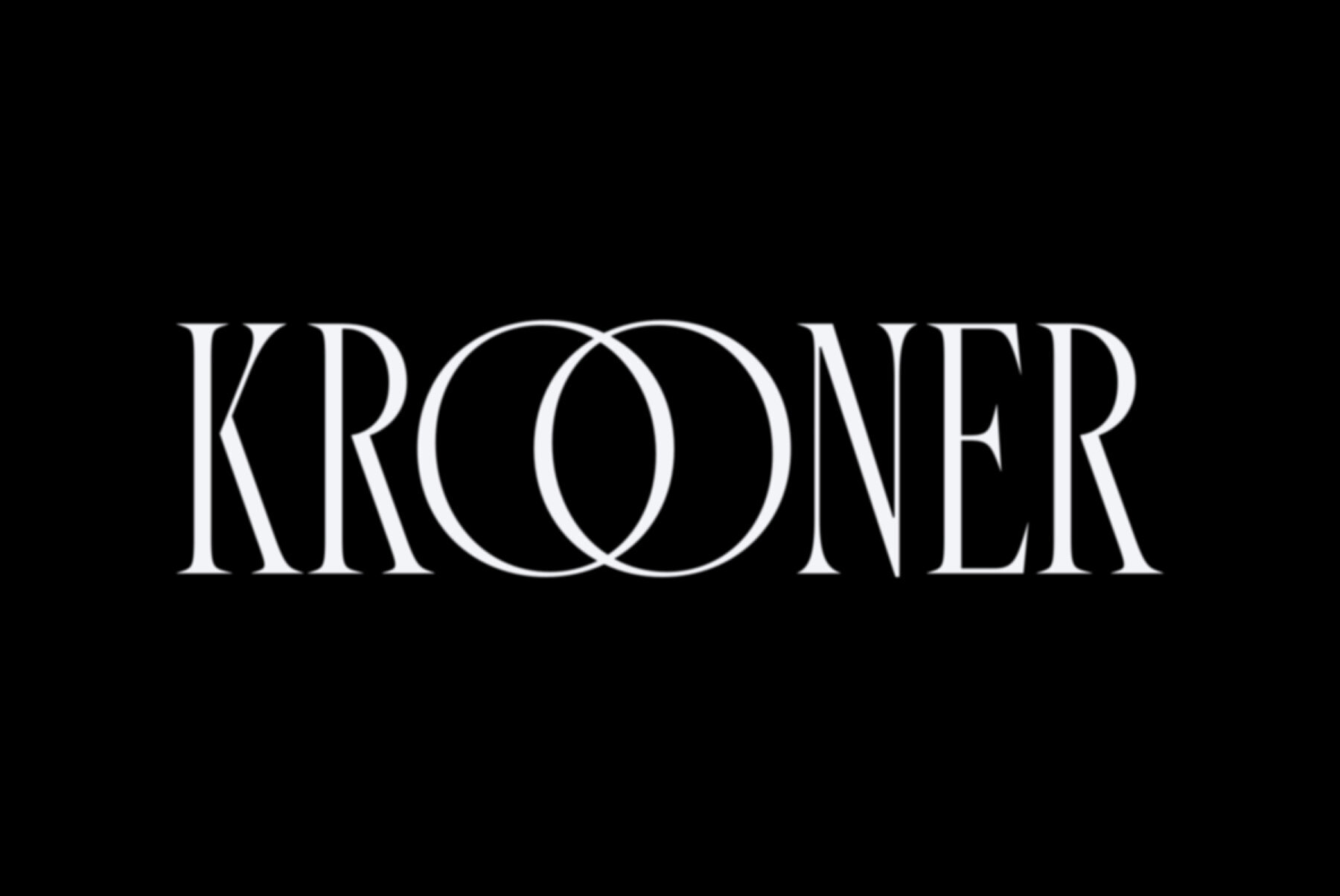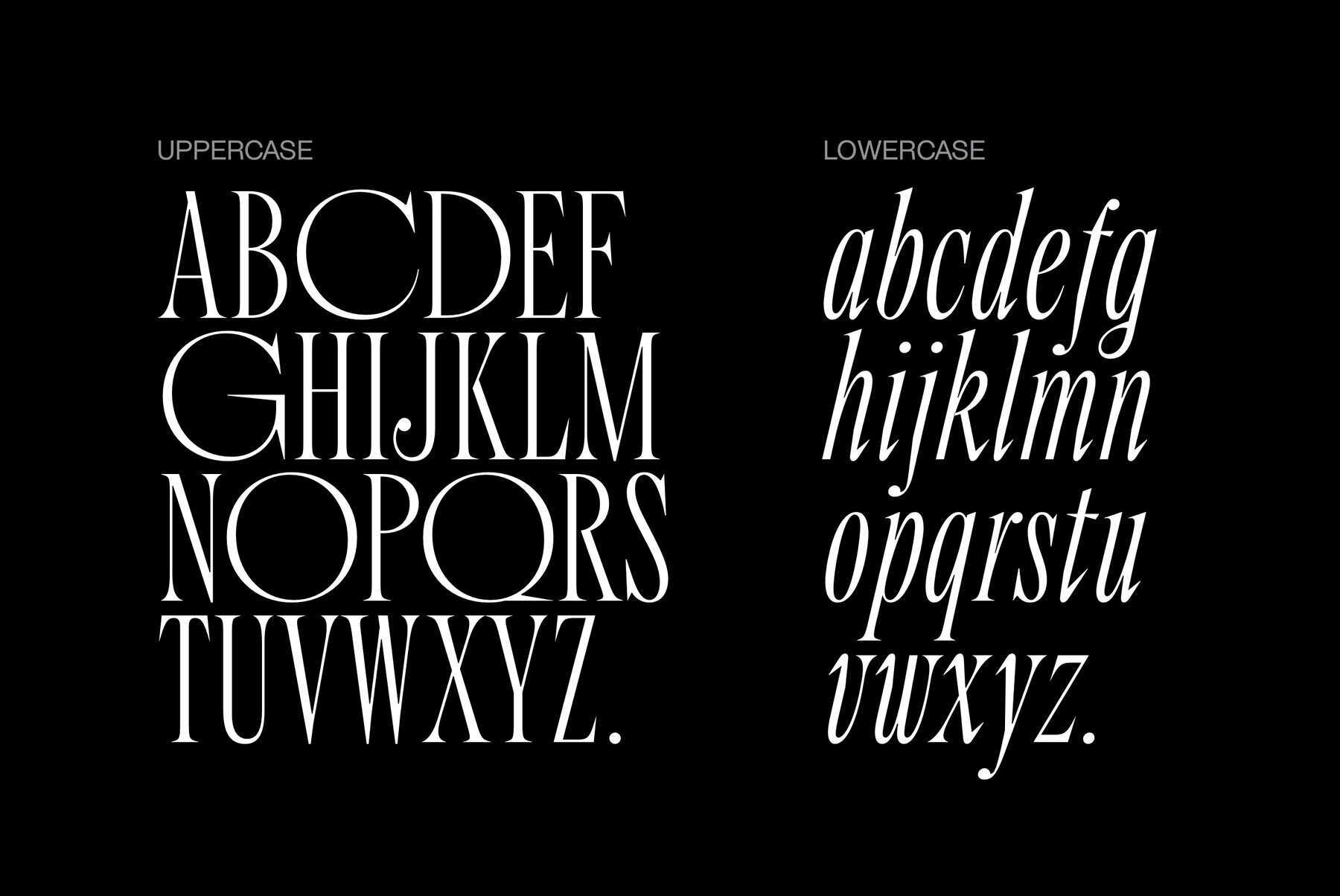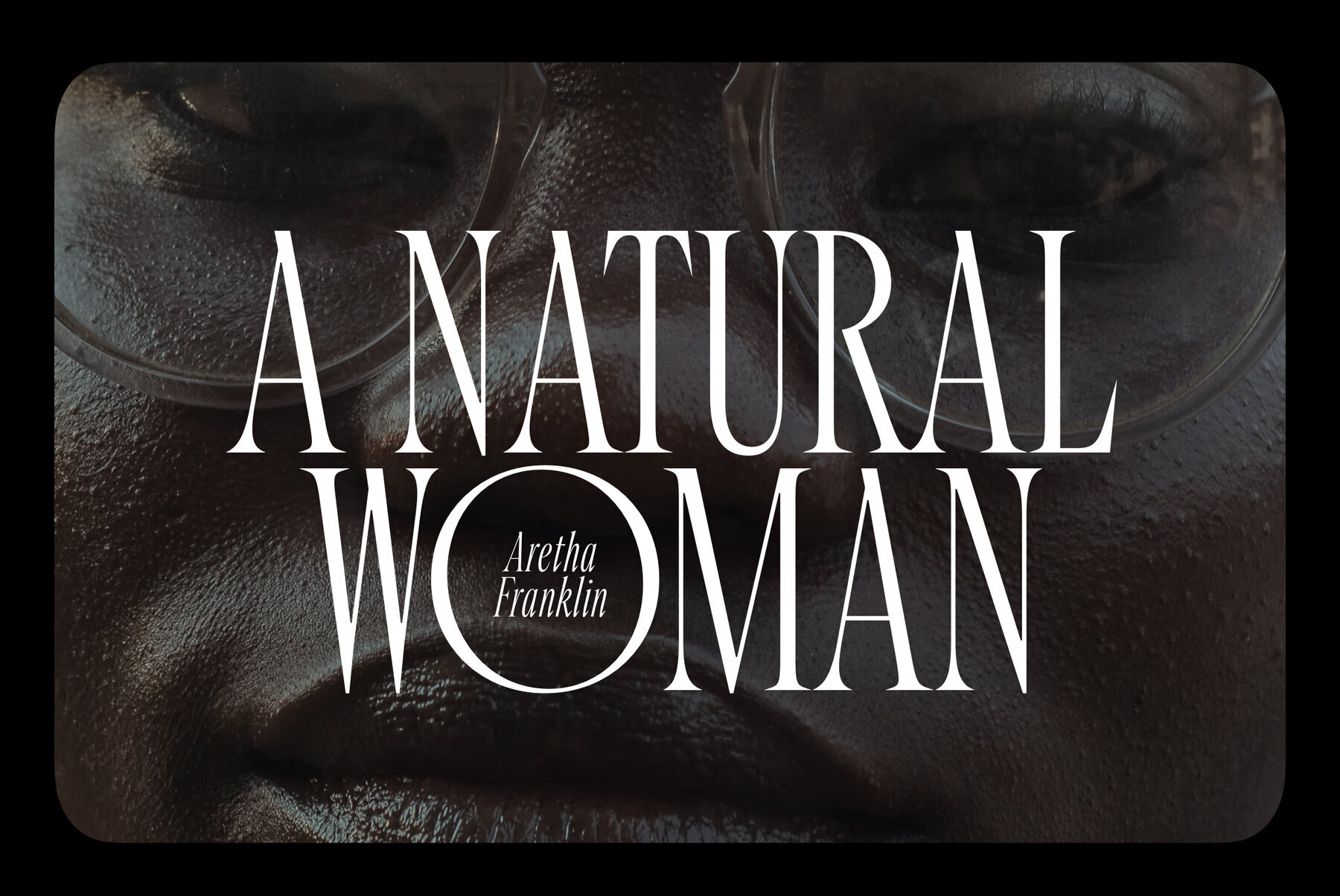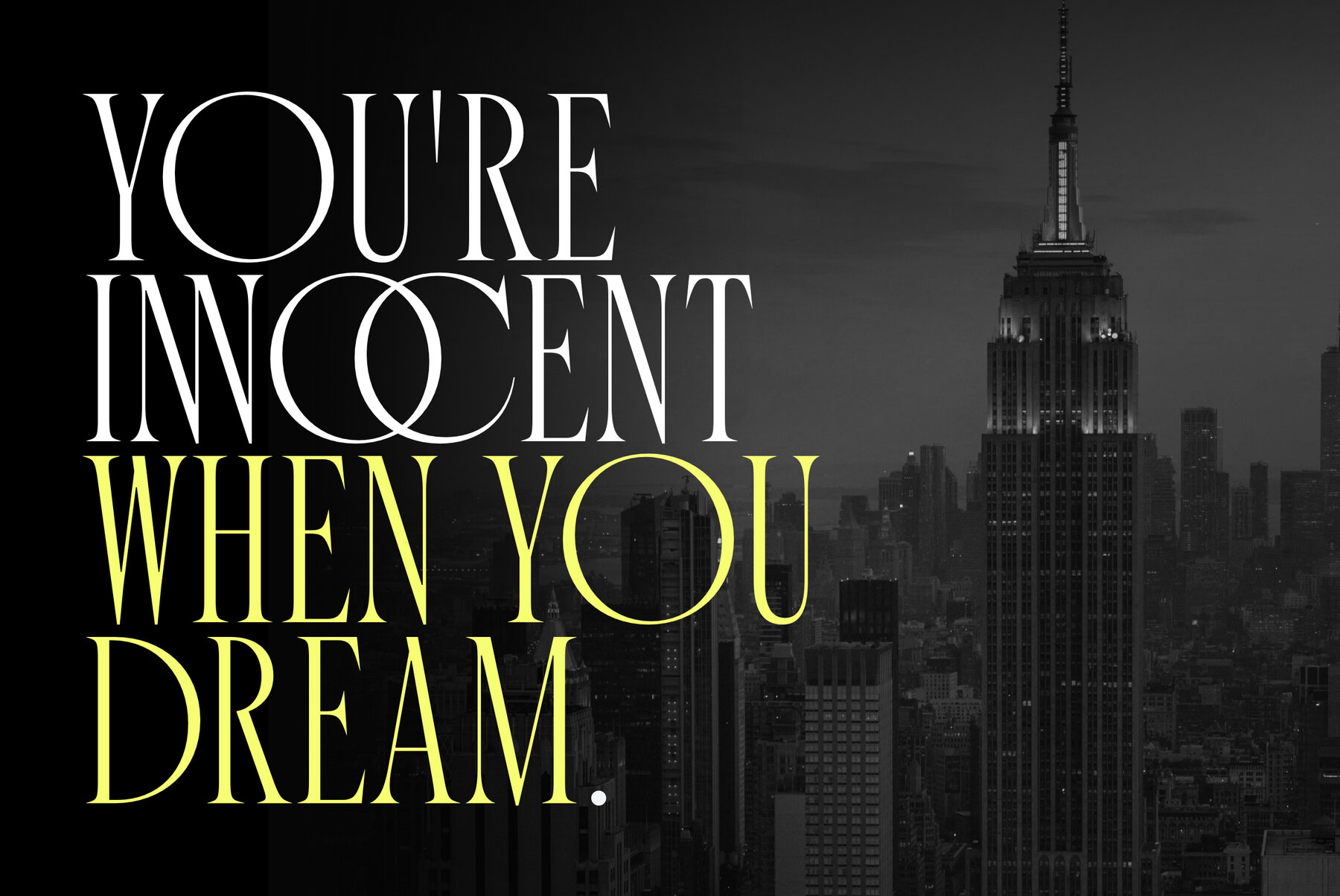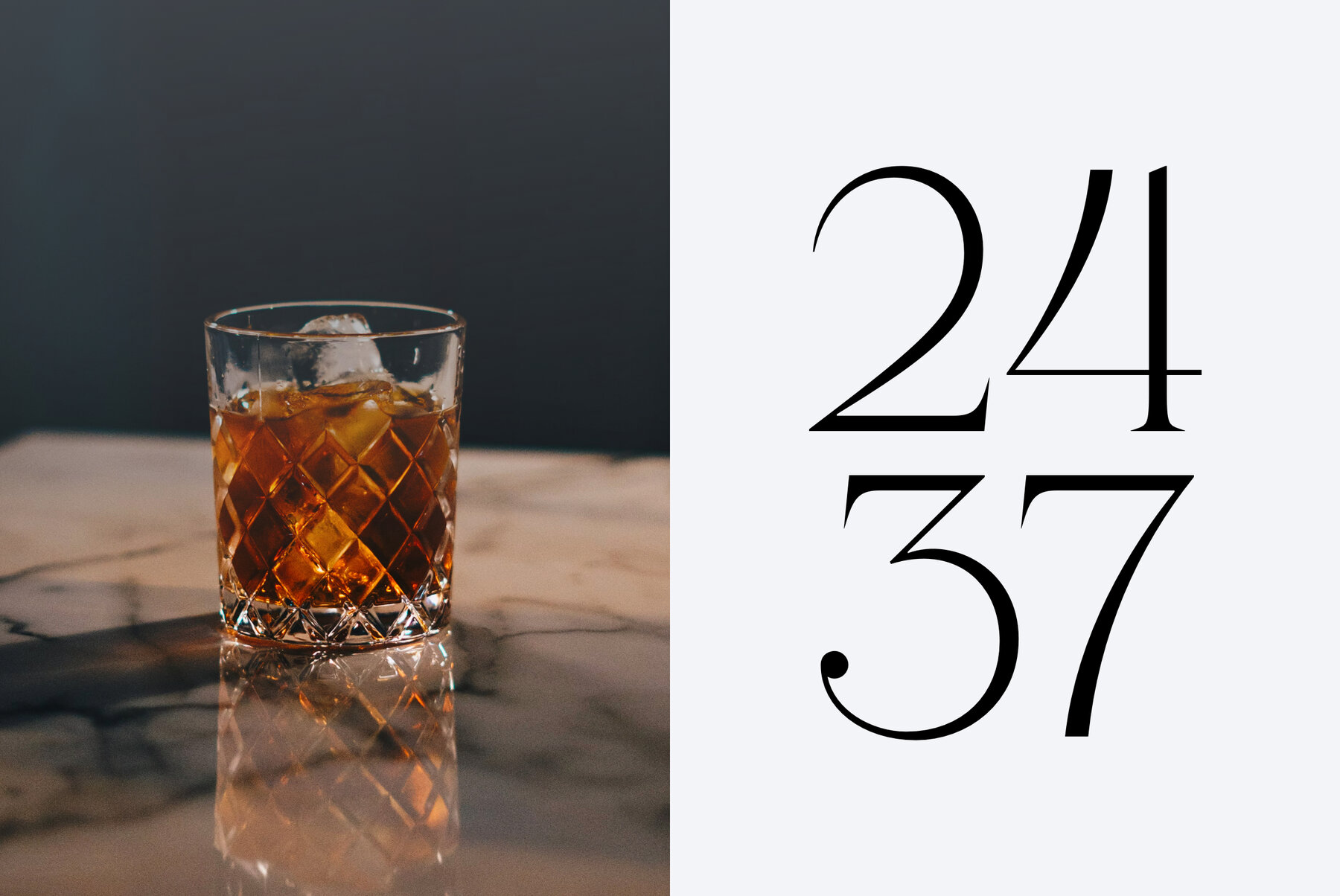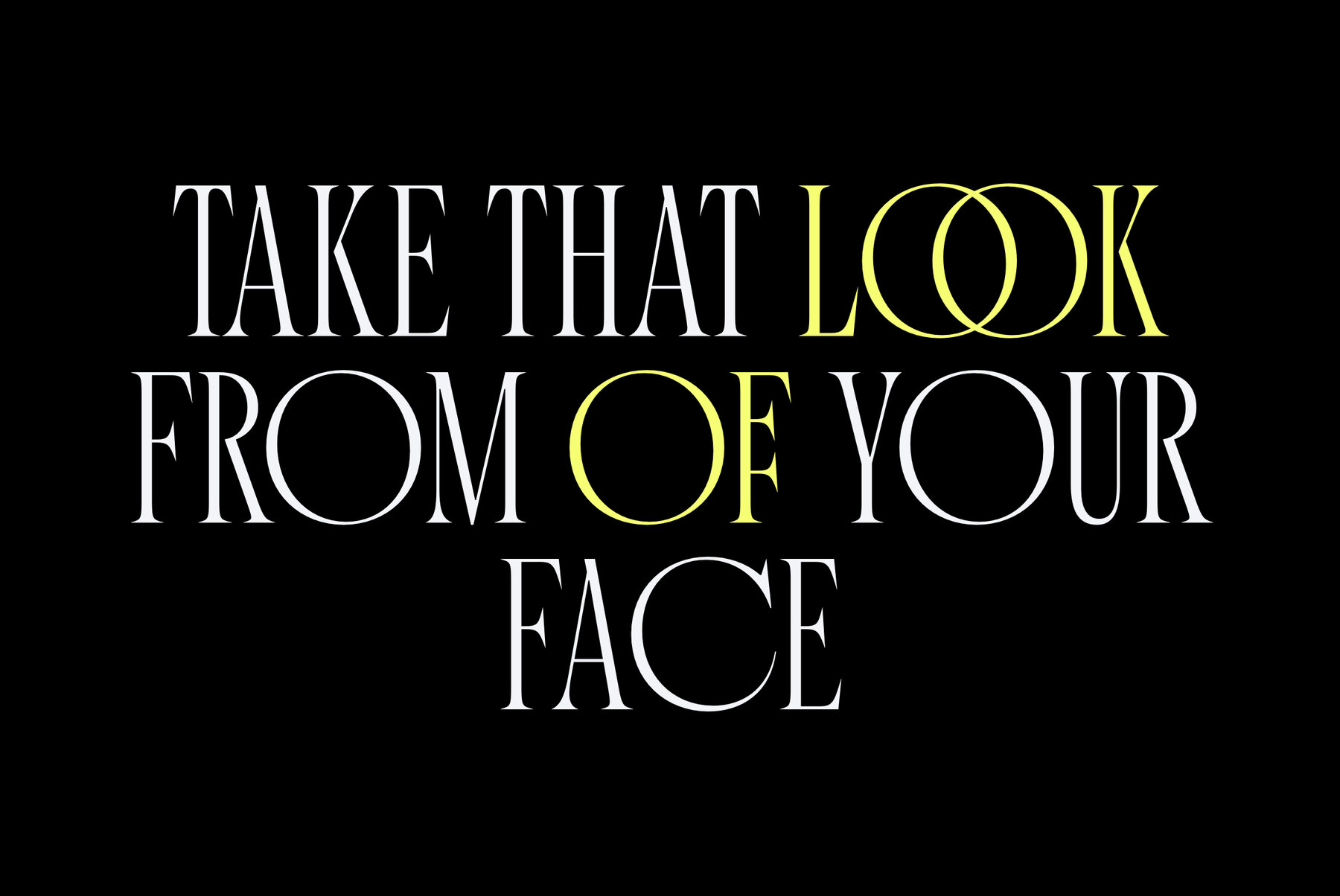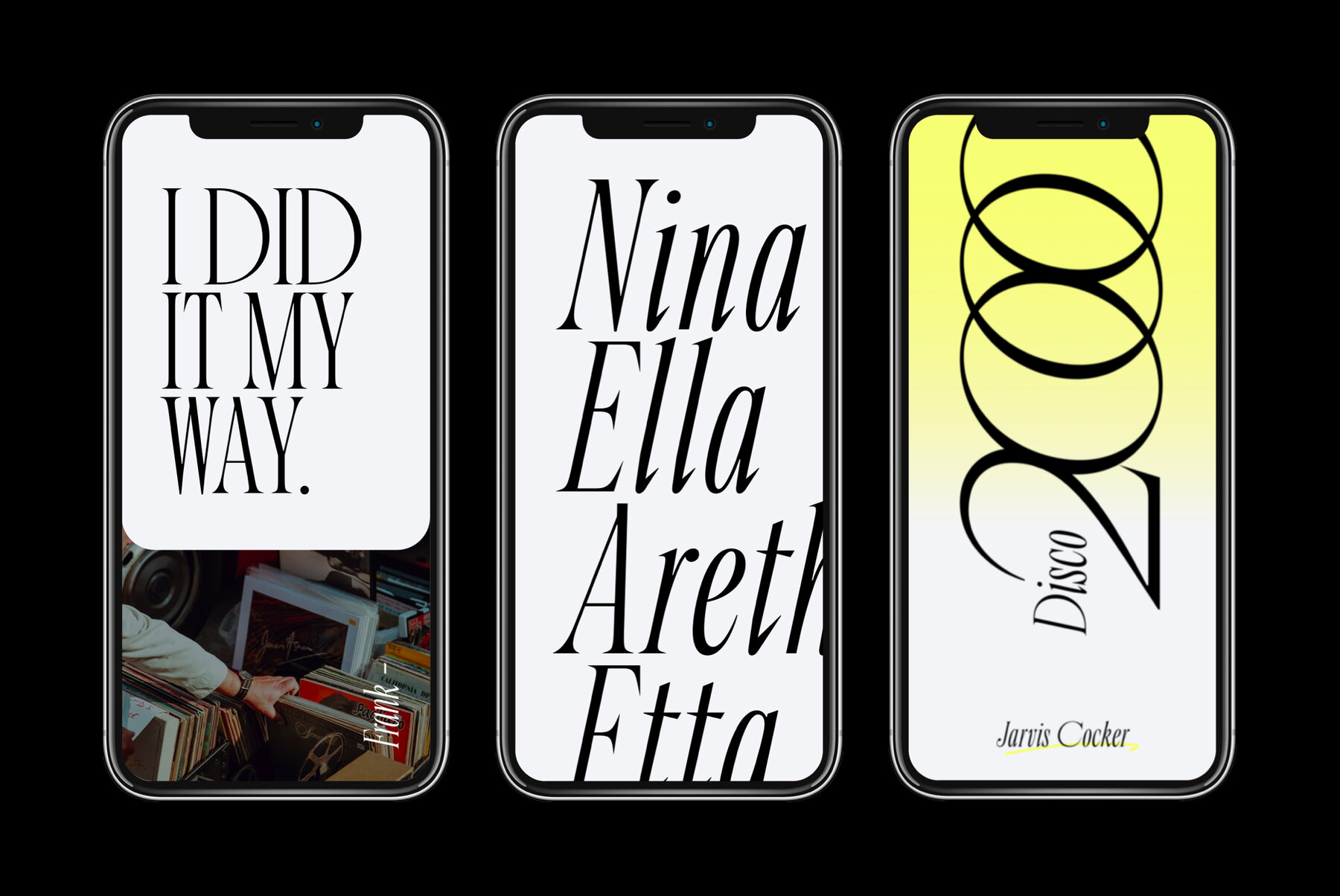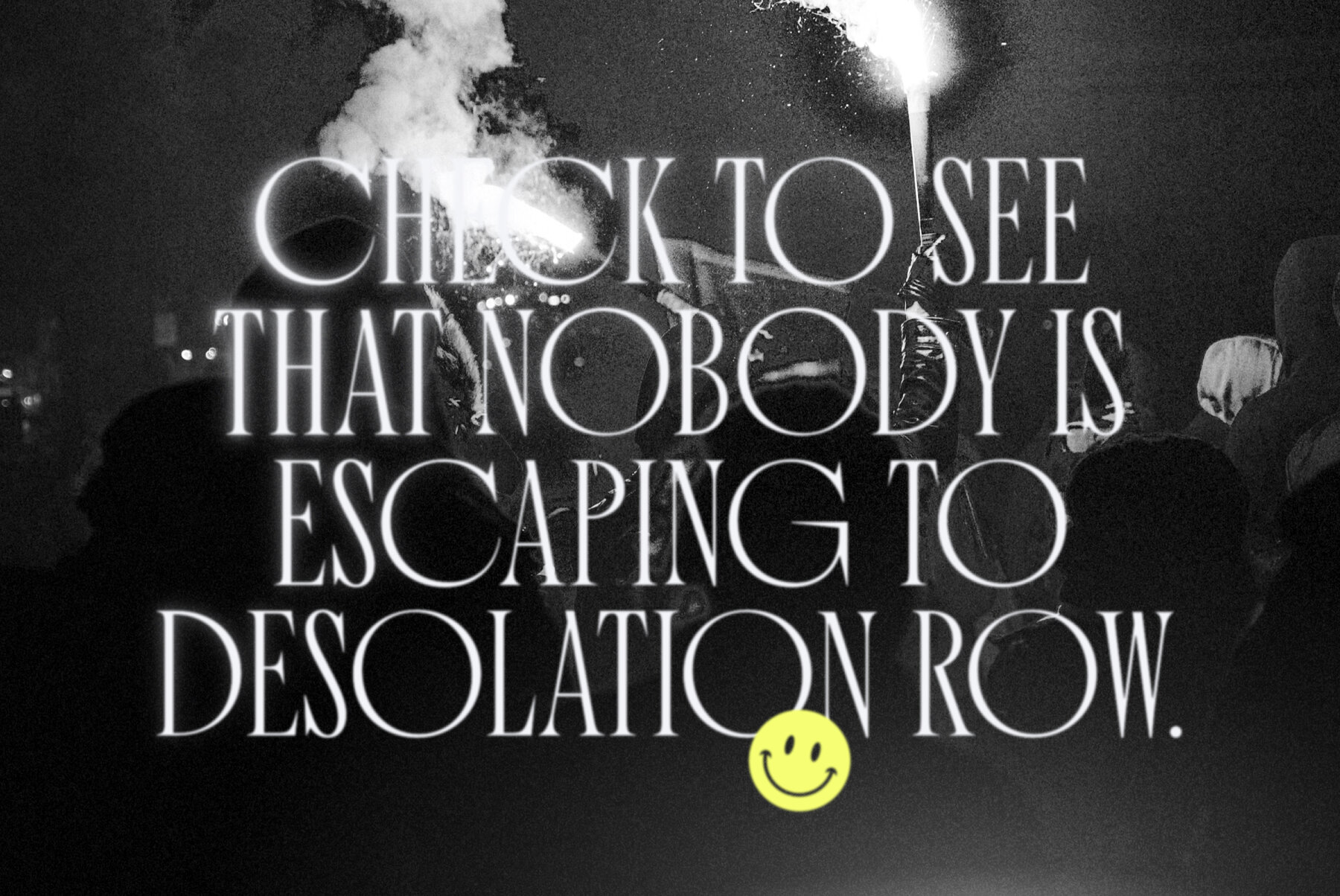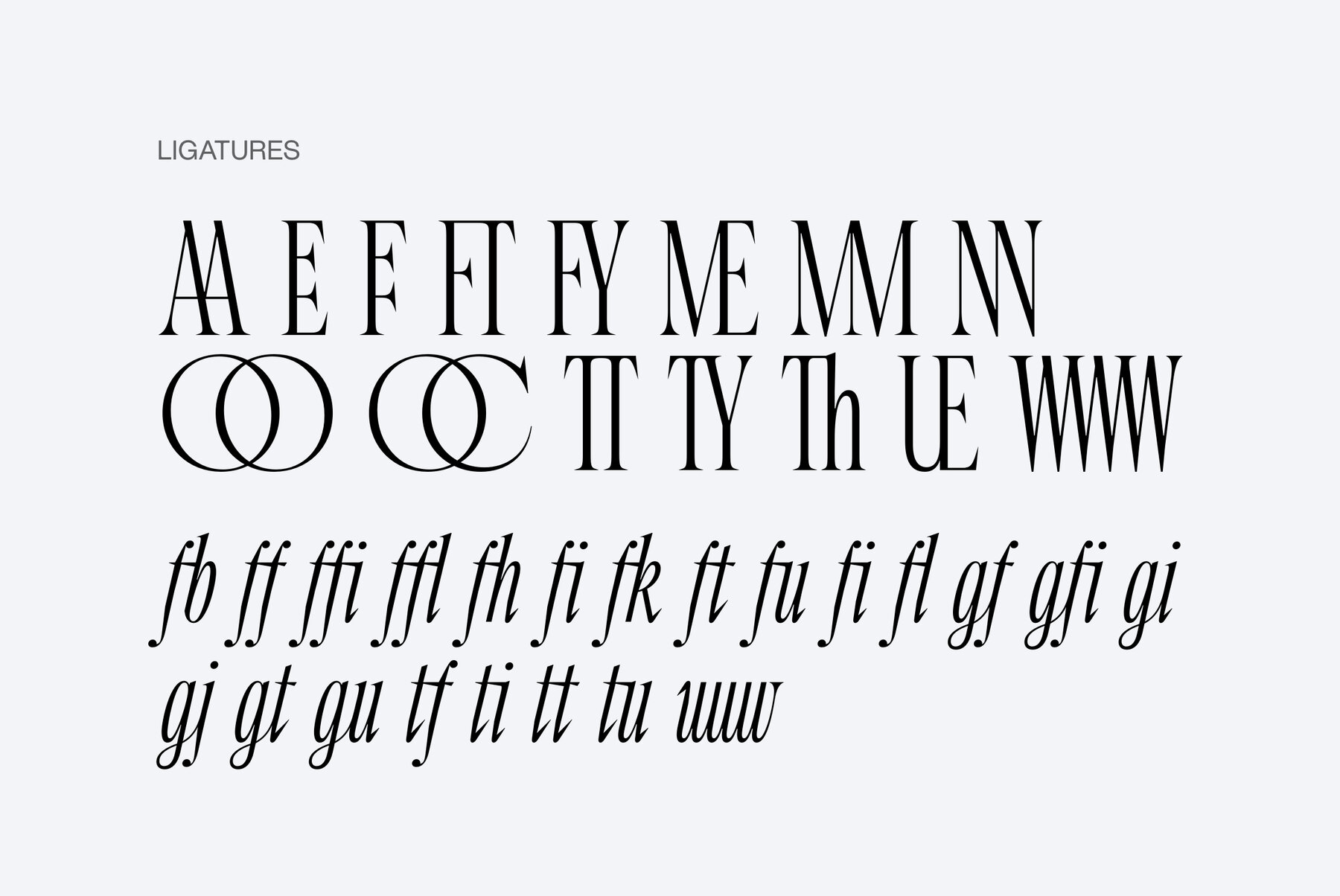
Krooner is a serif display typeface that seeks sophistication through elegance. With a compressed style and wide circular figures, it stands out as a typeface for short titles, its italic version has a high level of readability for long texts without losing its style in small sizes. The characters are created with a great level of detail that can be appreciated in its greatest splendor in large sizes.
It has more than 600 characters and ligatures that together with its rational, humanist and contemporary serif features make it very versatile for a large number of applications.